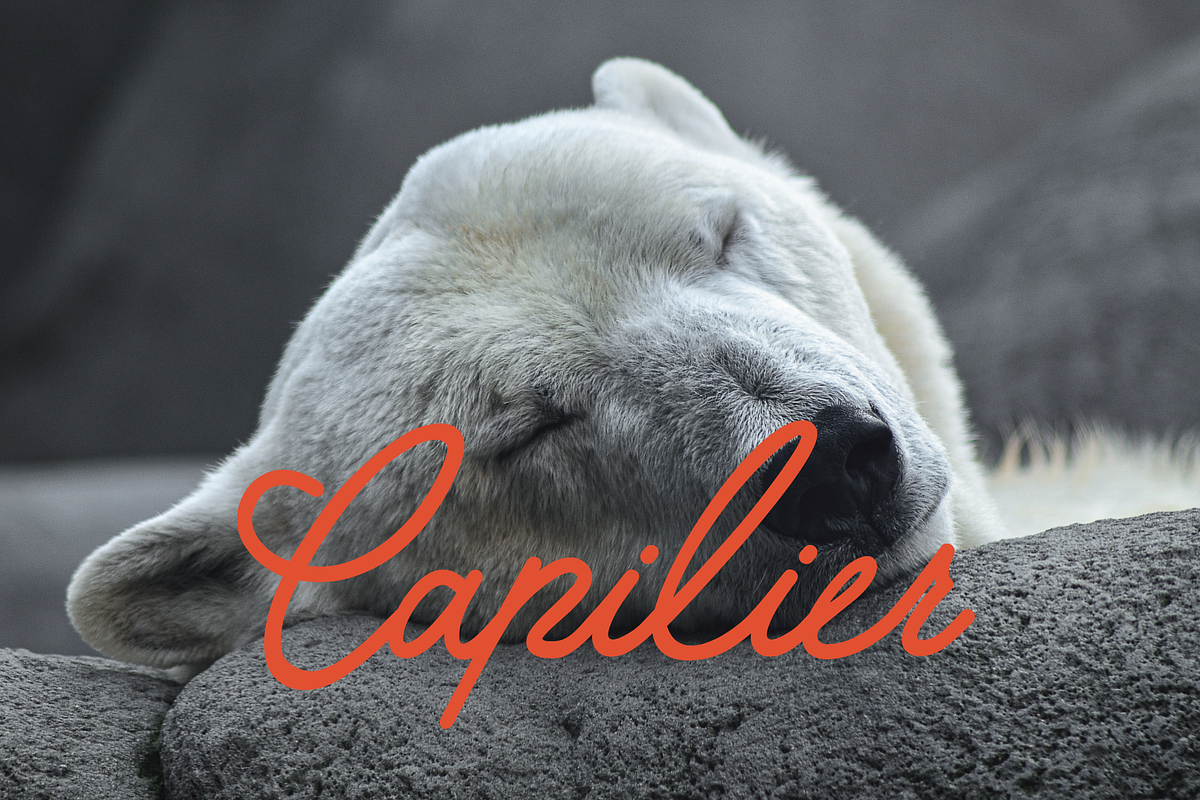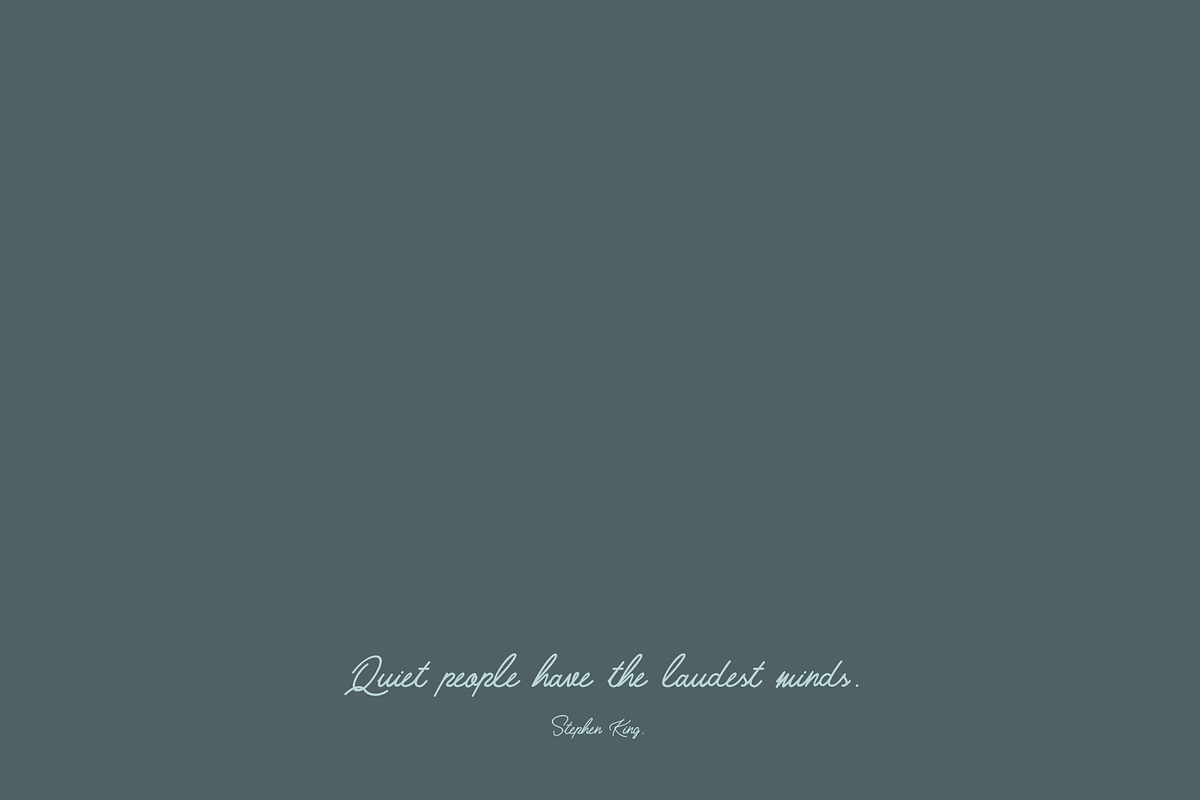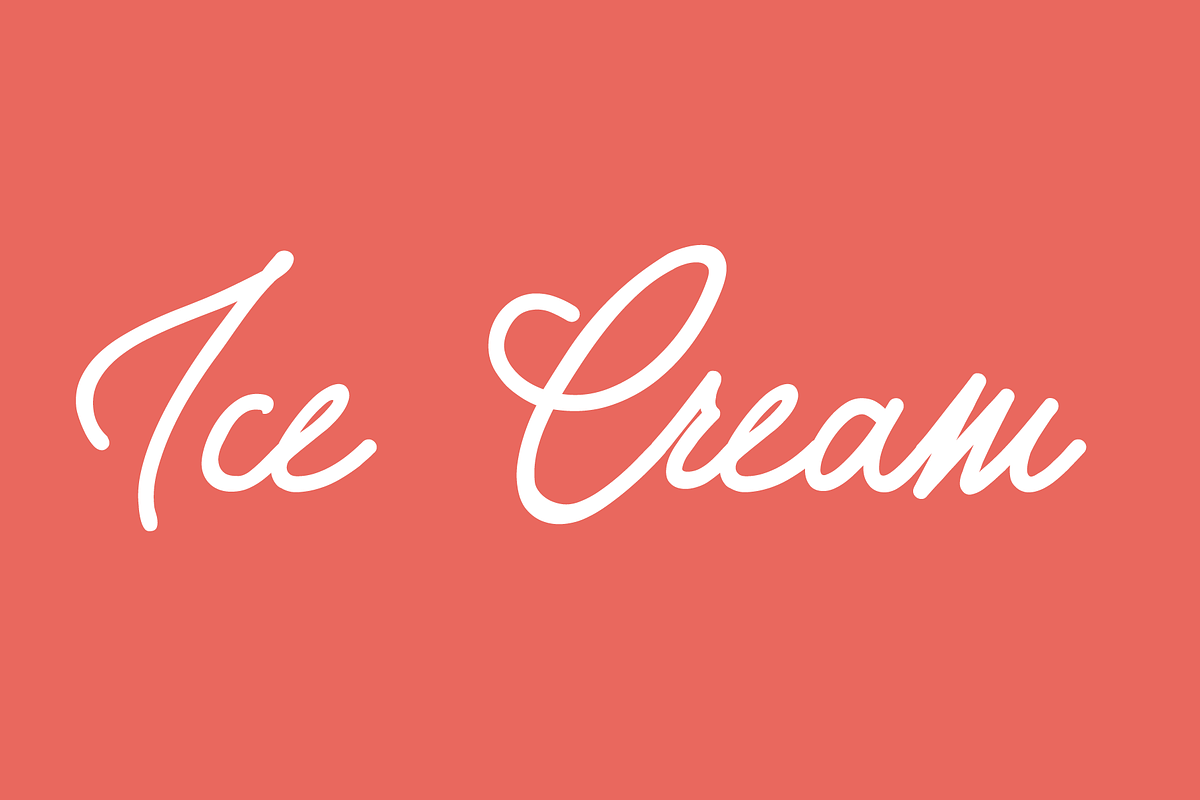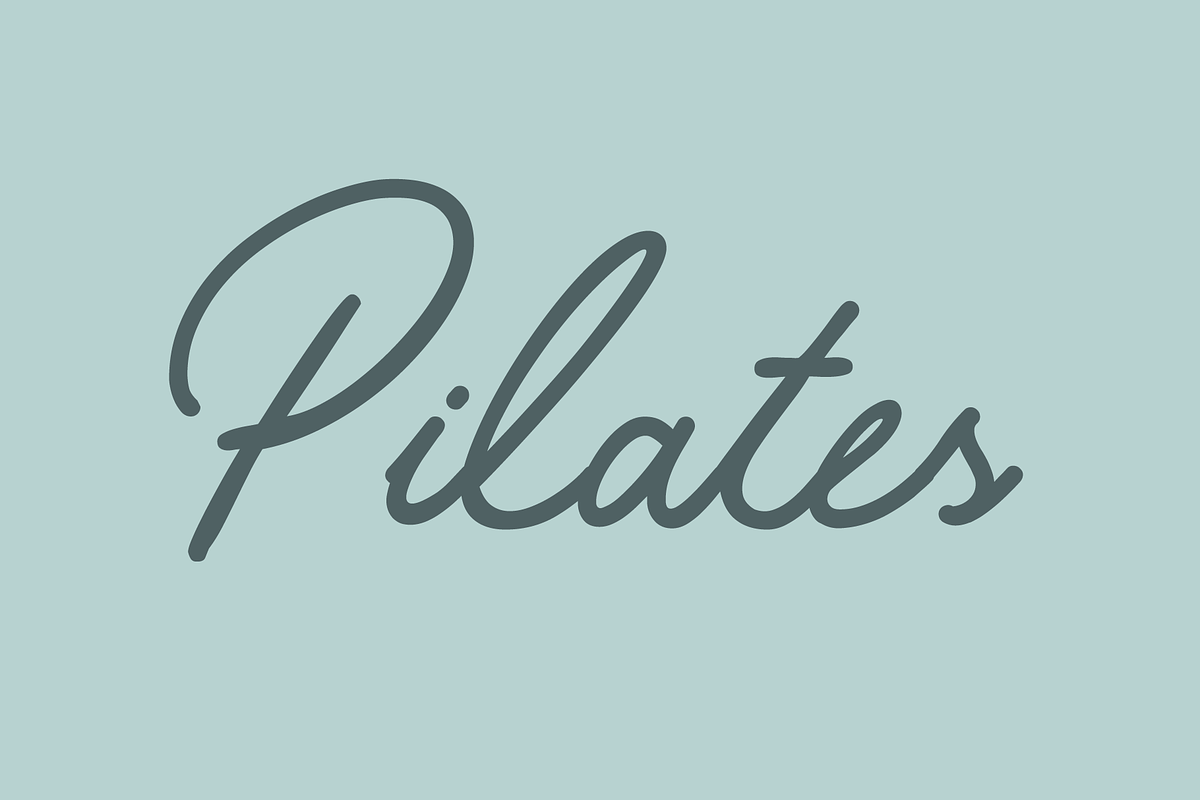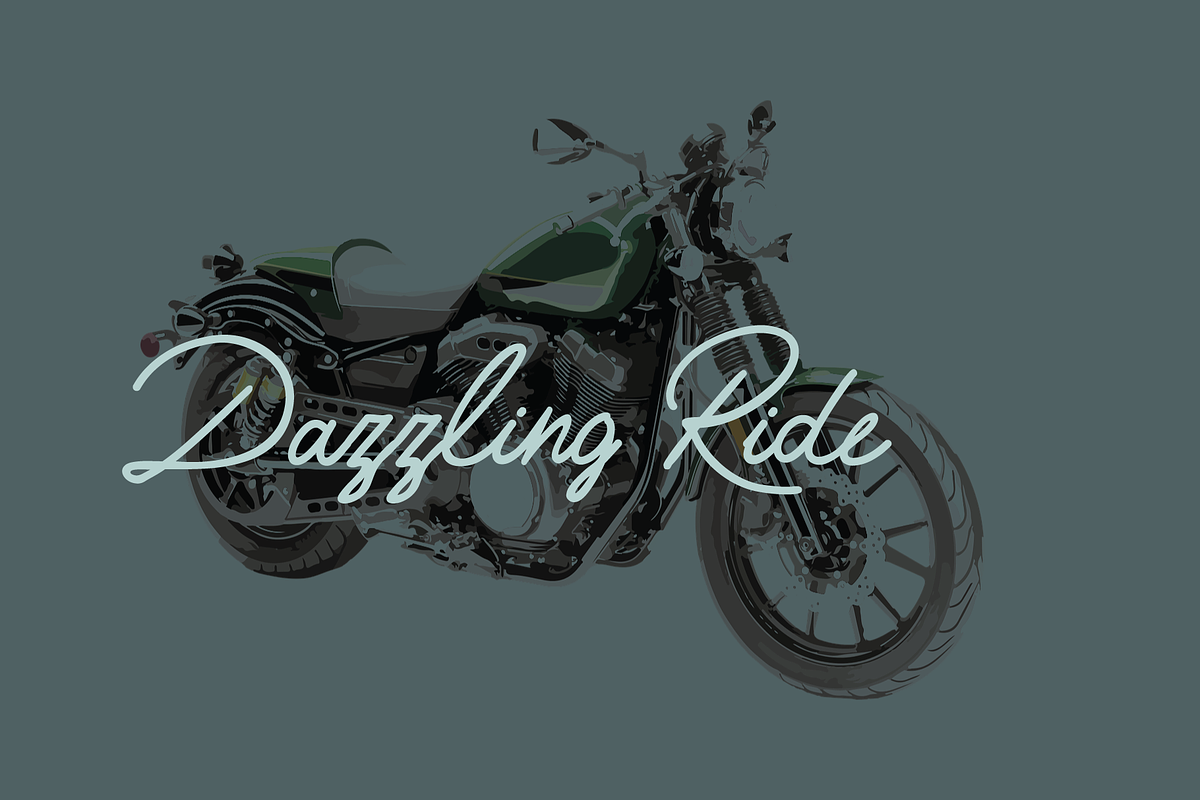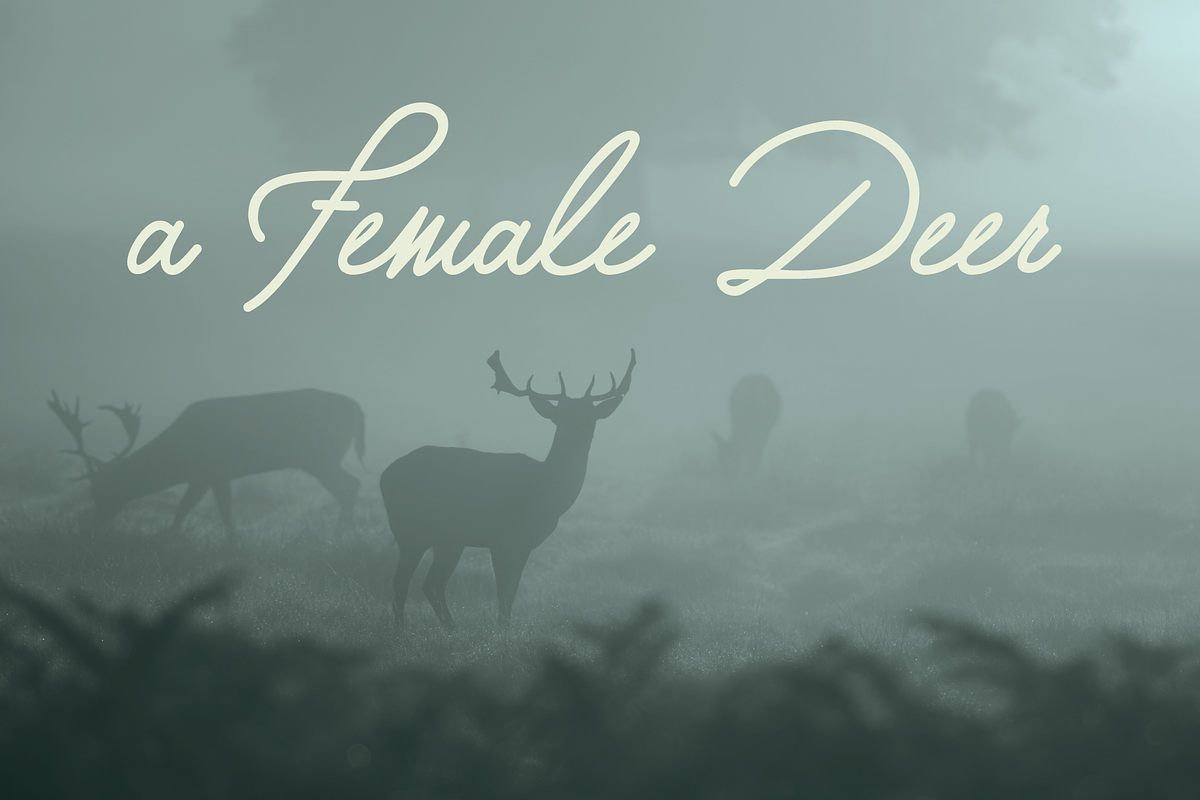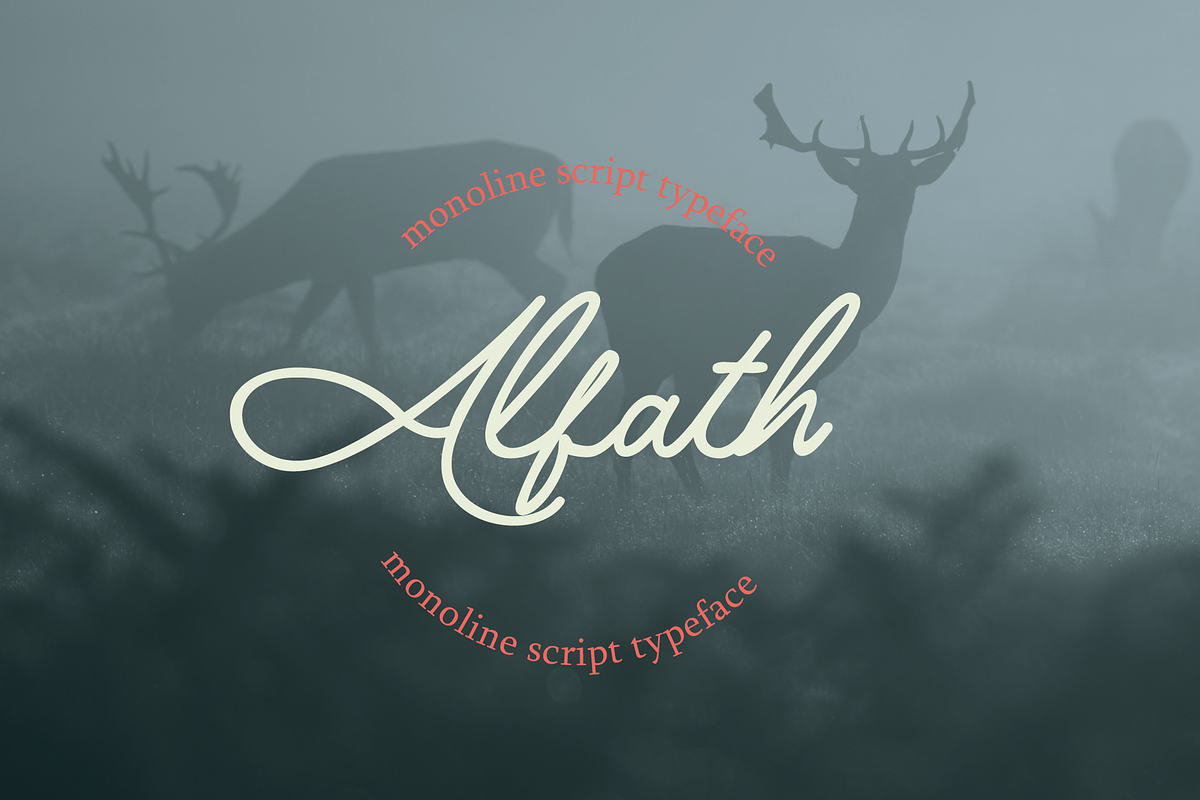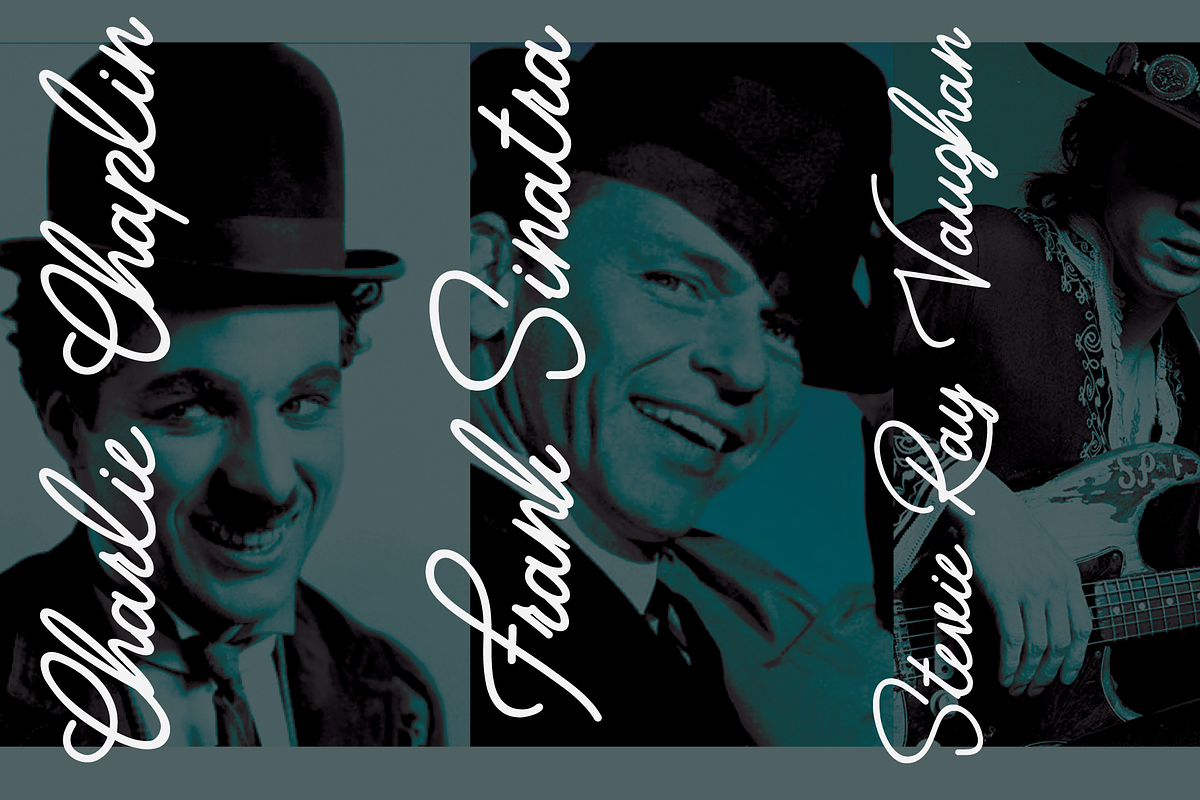
Alfath - monoline script
Alfath is a monoline script font that combines elegant simplicity with the timeless beauty of modern calligraphy. Featuring smooth, flowing strokes and delicately crafted letterforms that gracefully dance along the baseline, Alfath creates a natural handwritten appearance with a clean and refined finish. Its minimalist monoline style offers the perfect balance between sophistication and readability, making it an excellent choice for both professional and personal design projects.
Designed for versatility, Alfath is perfect for luxury branding, logos, wedding invitations, fashion labels, cosmetic packaging, product packaging, social media graphics, business cards, stationery, greeting cards, editorial layouts, signatures, and elegant typography. The graceful curves and stylish connections between letters give every word a premium, handcrafted look that instantly enhances your designs.
With multilingual support and beautifully balanced spacing, Alfath performs exceptionally well in both print and digital applications. Whether you're creating a high-end brand identity, romantic wedding stationery, or eye-catching marketing materials, this monoline script font delivers elegance, charm, and modern sophistication. Add Alfath to your font collection and give your creative projects a luxurious handwritten touch that stands out with timeless style.